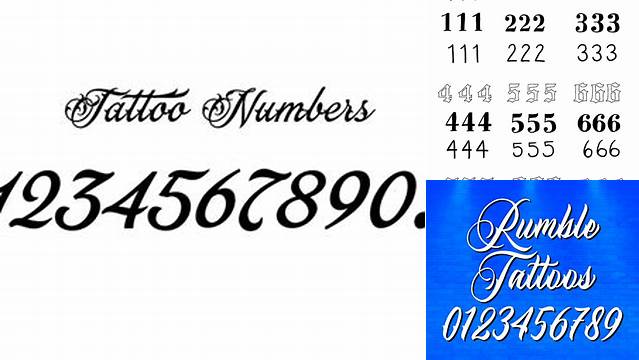
Number Tattoo Font Ideas: Find Your Perfect Style
Choosing the perfect number tattoo font can feel like a big deal, right? You want something that looks cool, expresses your personality, and, let's be honest, won't make you regret your ink a few years down the line. Whether you're commemorating a birthday, a special date, or a lucky number, the font you pick can totally transform the meaning and aesthetic of your tattoo. So, let's dive into some fantastic number tattoo font ideas, break down what makes each style unique, and give you the lowdown on how to choose the best one for your needs. Get ready to find some inspiration and maybe even your next tattoo!
Understanding Different Number Tattoo Font Styles
Okay, guys, before we jump into specific fonts, let's get a handle on the broad categories. Understanding these styles will help you narrow down your choices and figure out what vibe you're going for. Each category brings its own flair and suits different tastes. Think of it like choosing an outfit β do you want something classic, bold, or maybe a little bit quirky? Let's explore the main styles, shall we?
Classic and Traditional Fonts
Classic and traditional fonts are like the reliable friends of the tattoo world. These are the go-to choices if you want something timeless and enduring. They often draw inspiration from old-school lettering styles and have been around for ages β for good reason. They're not flashy, but they exude a sense of stability and heritage. These styles often have a strong sense of history, reflecting the origins of tattooing itself. Think of things like serif fonts (those little feet at the end of the letters) and simple, clean sans-serif options. They're easy to read, which is super important, and they're versatile enough to work well on various parts of the body. If you're after a tattoo that will age gracefully and stand the test of time, classic fonts are your jam. These fonts are also a fantastic pick if you're going for a vintage or retro vibe. They pair perfectly with traditional tattoo imagery like anchors, roses, and swallows. So, whether you're honoring a significant date or a loved one's birthday, a classic font provides a sophisticated and enduring aesthetic. You can't really go wrong with the classics.
Some examples include Times New Roman, Arial, and Helvetica β all fonts you've likely seen a million times, but hey, that's because they work! They provide a clean and professional look that's appropriate for almost any tattoo concept. They are particularly well-suited for numbers representing important dates, anniversaries, or coordinates. This versatility also makes them a great choice for any part of the body. The key is to make sure the font isn't overly complicated, so readability stays high. You want to be able to look at your tattoo years down the road and still be able to read it. Choosing a classic font is a safe bet, offering both elegance and longevity to your tattoo design. Ultimately, opting for a classic font style means you're embracing simplicity and ensuring your tattoo remains relevant no matter how styles change.
Bold and Modern Fonts
Now, if you're the type of person who loves making a statement, bold and modern fonts might be more your speed. These fonts are all about impact, with a focus on strong lines, sharp angles, and a contemporary feel. They're perfect for adding a bit of edge and personality to your tattoo. Modern fonts often break the rules, pushing the boundaries of traditional typography with unique shapes and designs. They are excellent for those who want a more stylized and eye-catching design. Imagine thick, blocky letters or sleek, minimalist numbers. These fonts can be incredibly versatile, lending themselves to everything from a simple date to a complex design that incorporates other elements. The goal here is to make your tattoo stand out. They're great if you're looking for something that reflects current trends and a forward-thinking aesthetic. If you're an early adopter of trends or just someone who likes a bold, confident look, these fonts are a solid choice.
Some options include variations of sans-serif fonts with clean lines, geometric shapes, and strong weight. The simplicity of many modern fonts also makes them ideal for small tattoos or placements where clarity is key. They're perfect if you're aiming for a minimalist design with maximum impact. With a contemporary look, they're perfect for any part of the body. However, keep in mind that some trendy fonts might not age as gracefully, so it's worth considering the longevity of the design. Before committing, try out different variations and placements to ensure the font works with your overall tattoo concept and that you love it just as much in ten years as you do today. Make sure to select the font that complements your style, making your tattoo a true reflection of your unique personality.
Script and Handwritten Fonts
If you want a more personal touch, script and handwritten fonts are where it's at. These fonts mimic the look of handwriting, offering a softer, more intimate feel than the bolder options. They can range from elegant and flowing to casual and quirky, depending on the specific style. Script fonts add a touch of elegance and romance to your tattoo, making them a popular choice for commemorating special dates or names. If you want your tattoo to feel personal, these fonts are definitely a great way to go. They give your tattoo a sense of individuality, like it's been written just for you. They can be incredibly versatile, from delicate cursive to bolder brush strokes. When choosing a script font, think about how the numbers will flow together and how they'll look with the overall design. They work incredibly well for tattoos that incorporate names, dates, or personal quotes.
Examples of script fonts include calligraphy-inspired styles or variations of handwritten fonts. The beauty of script fonts lies in their ability to add a personal touch to your tattoo. Itβs almost like your handwriting is now permanently inked onto your skin! These fonts also add a vintage or classic feel to your tattoo design. Remember, the readability of a script font is crucial, so make sure it's legible, even when the tattoo is aged. The best part is that you can customize these fonts, creating something truly unique. The personal and intimate nature of these fonts makes them a favorite for tattoos. Whether it's the birthdate of a child, the date you got married, or any other special day, these fonts add a sentimental value to your tattoo.
Unique and Decorative Fonts
Ready to get creative? Unique and decorative fonts are for those who want to stand out. These fonts can incorporate a range of styles, from artistic flourishes to unconventional letterforms. If you're looking for something truly one-of-a-kind, this is the category to explore. Decorative fonts can add an element of playfulness and creativity to your tattoo, making it a real conversation starter. Think about fonts that incorporate symbols, patterns, or intricate designs. These styles give you the freedom to express yourself in a unique way. If you're an artist, a designer, or just someone with an artistic flair, decorative fonts can make your tattoo a masterpiece. The possibilities are endless, so embrace your creativity. These fonts are all about pushing boundaries and creating a tattoo that's as unique as you are.
Fonts that incorporate unique details, like custom flourishes, symbols, or artistic elements, fall into this category. The key is to make sure the font complements your overall design and isn't too difficult to read. These fonts can be more challenging, but the result is a tattoo that truly stands out. They are perfect if you want to create a personalized design. With careful planning and consultation with a skilled tattoo artist, decorative fonts can transform your tattoo into an artistic statement. But keep in mind the size and placement of the tattoo. Smaller, more intricate fonts might not translate well. Always get your artist's feedback before committing to a design. This ensures you'll be thrilled with the final result. Be bold, be creative, and make sure your tattoo is a true reflection of you.
Conclusion: Finding Your Perfect Number Tattoo Font
Choosing a number tattoo font is an exciting process. By understanding different font styles, considering the meaning and placement, prioritizing readability, testing different fonts, and consulting a professional tattoo artist, you can find the perfect font to express your unique story. Embrace the journey, and enjoy the process. Your tattoo is a piece of art. Make sure it's one you'll love for years to come! Good luck with your ink, and I hope you find the perfect number tattoo font for you!